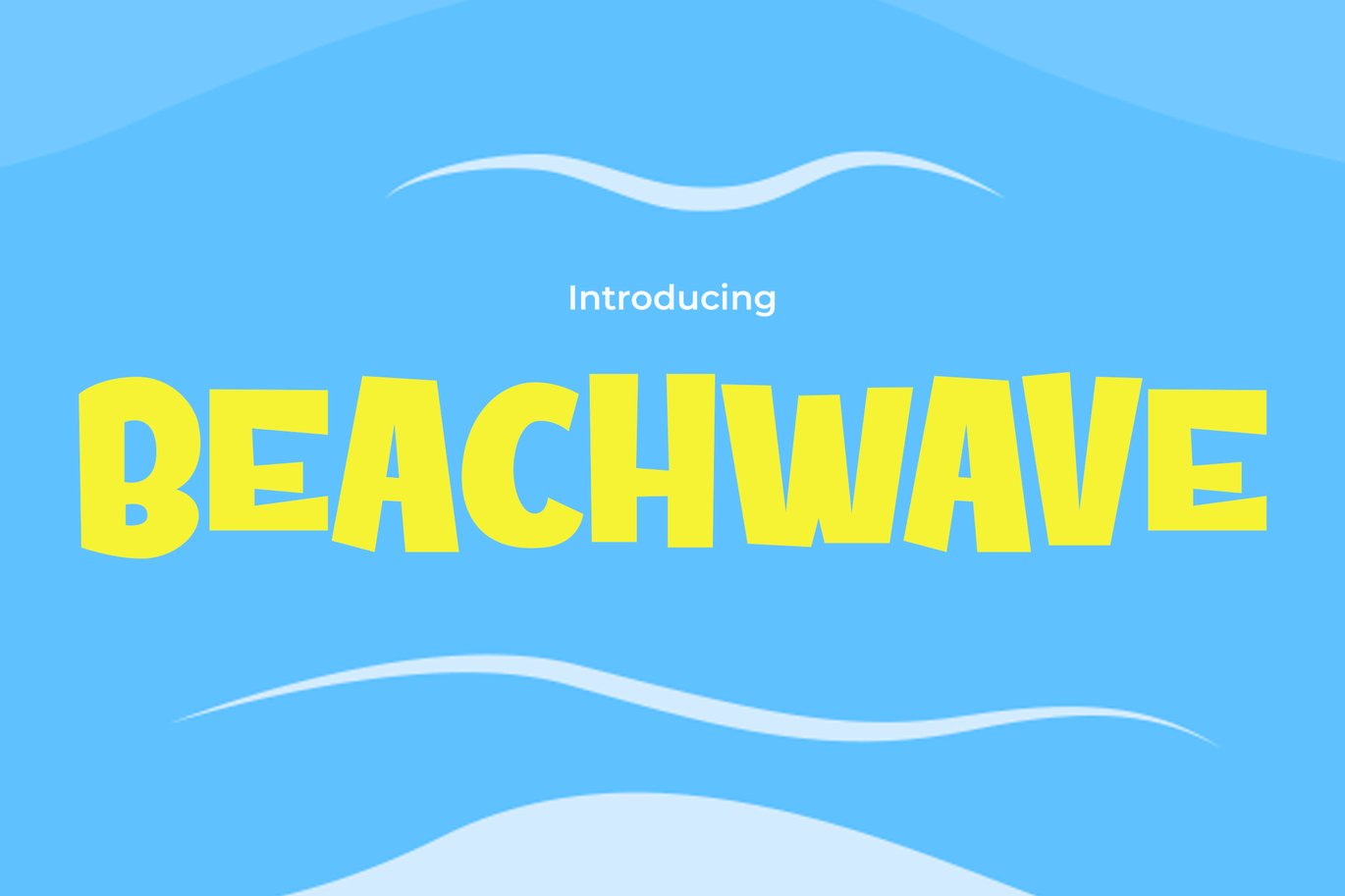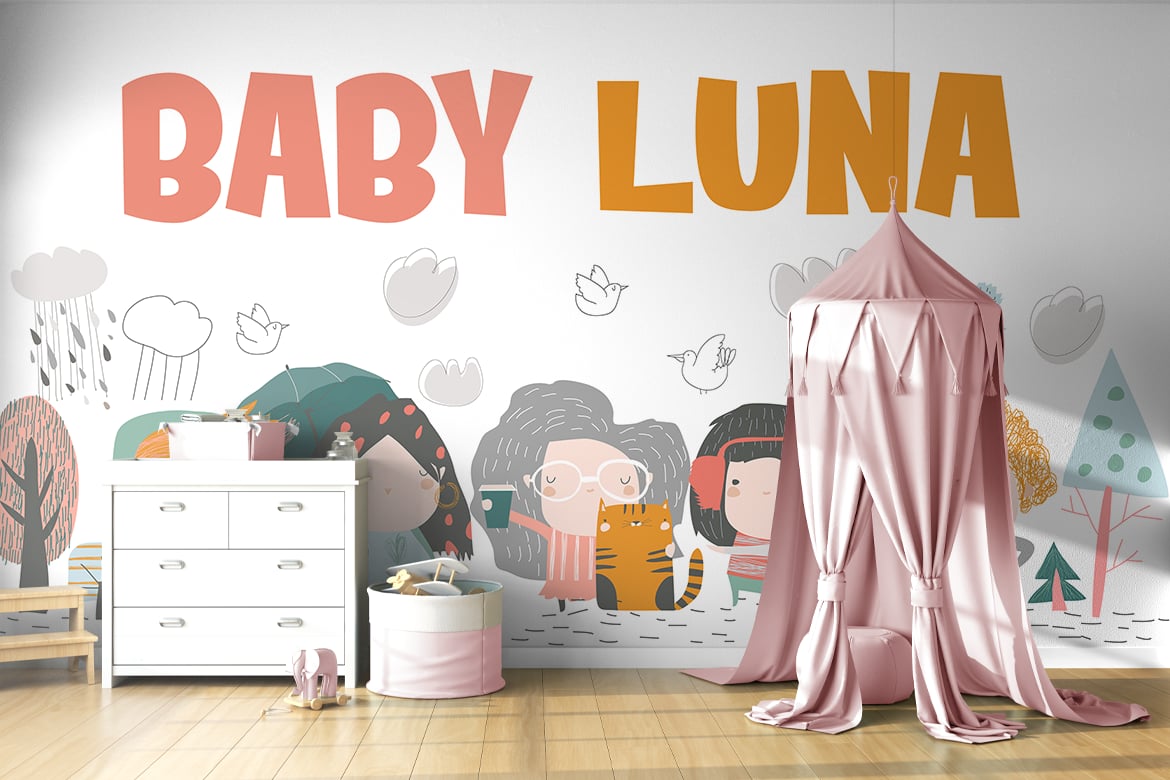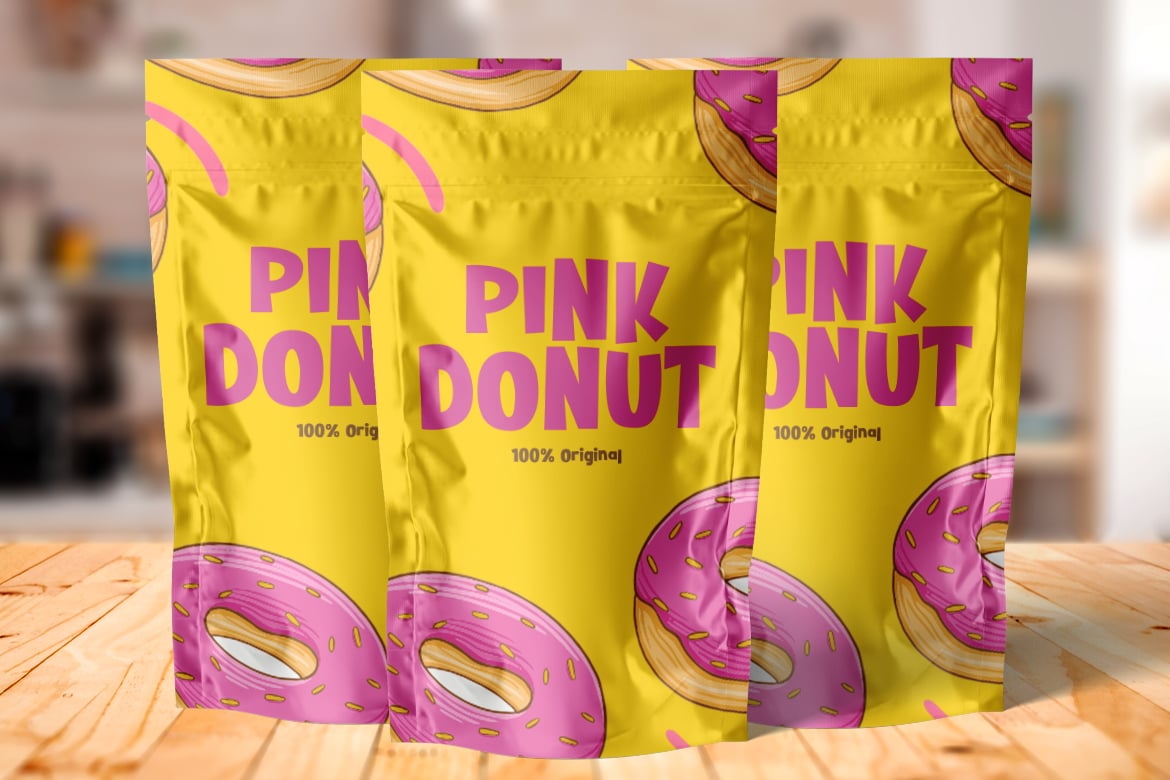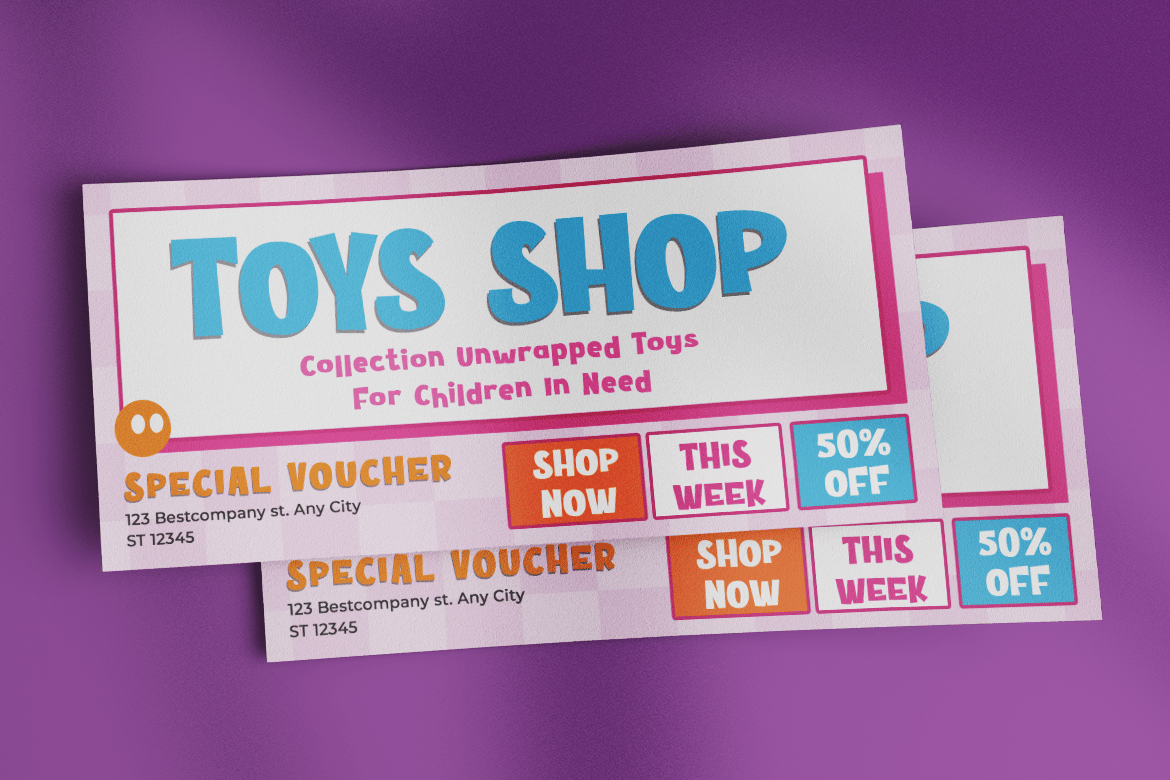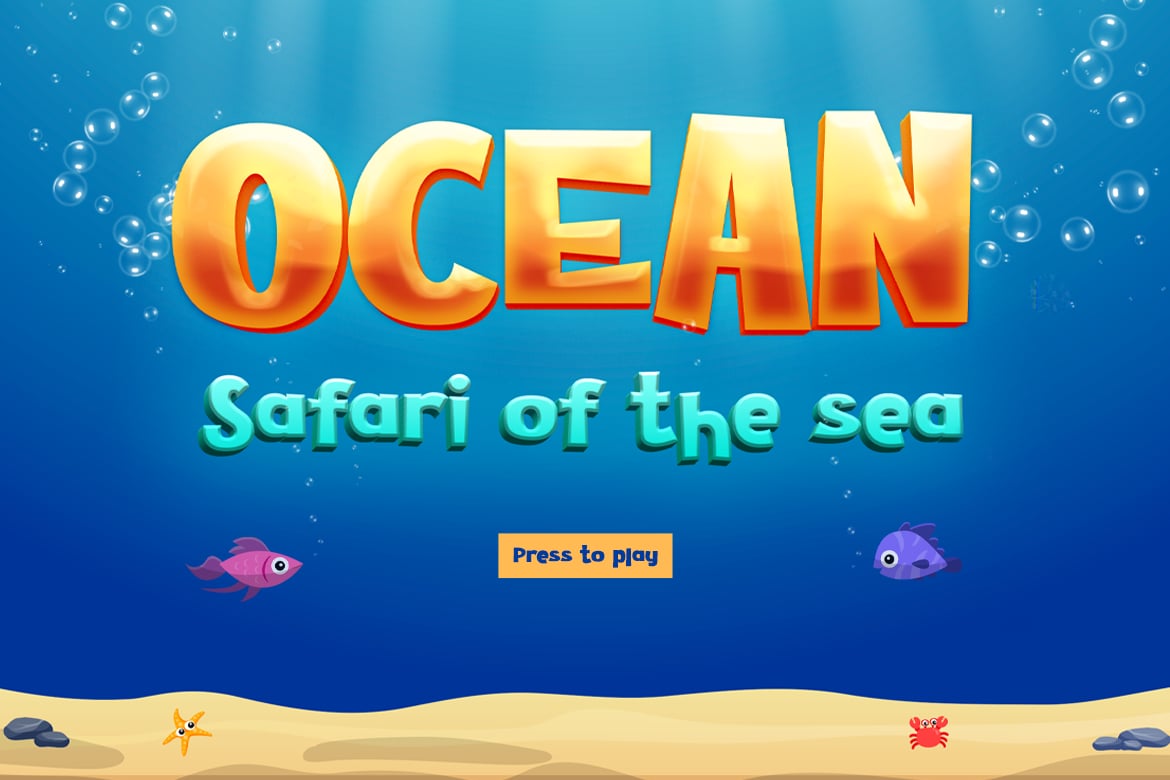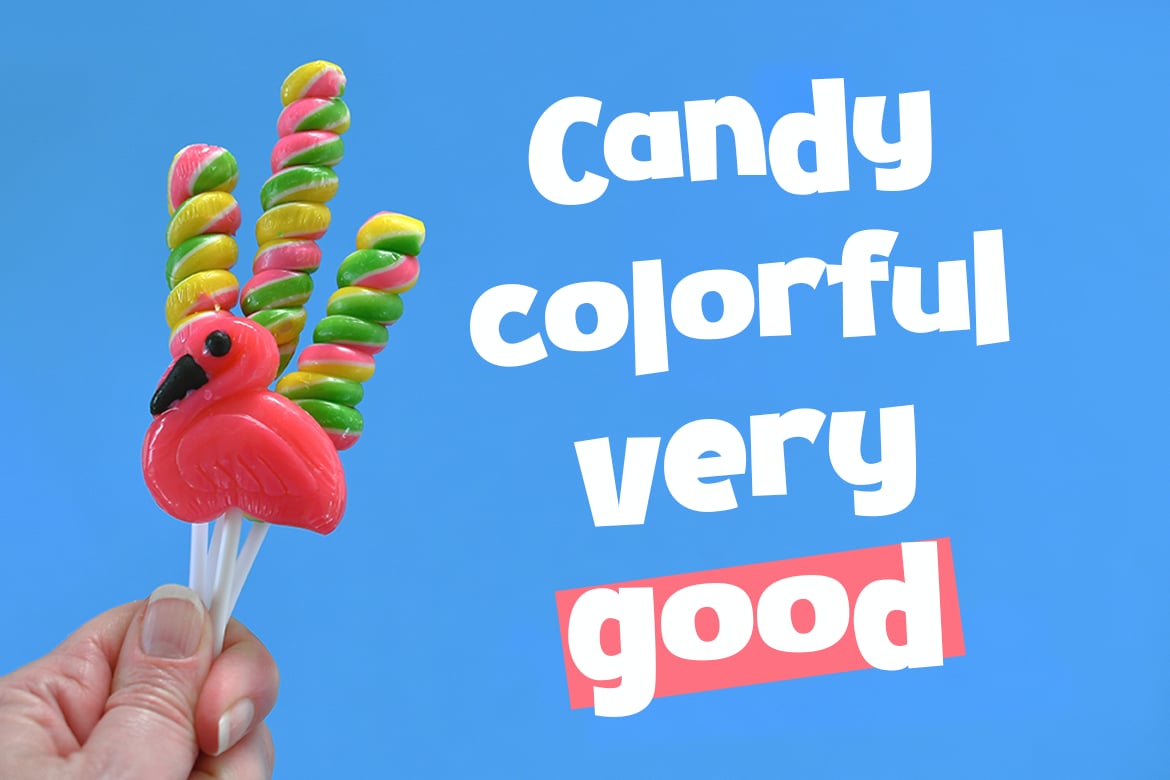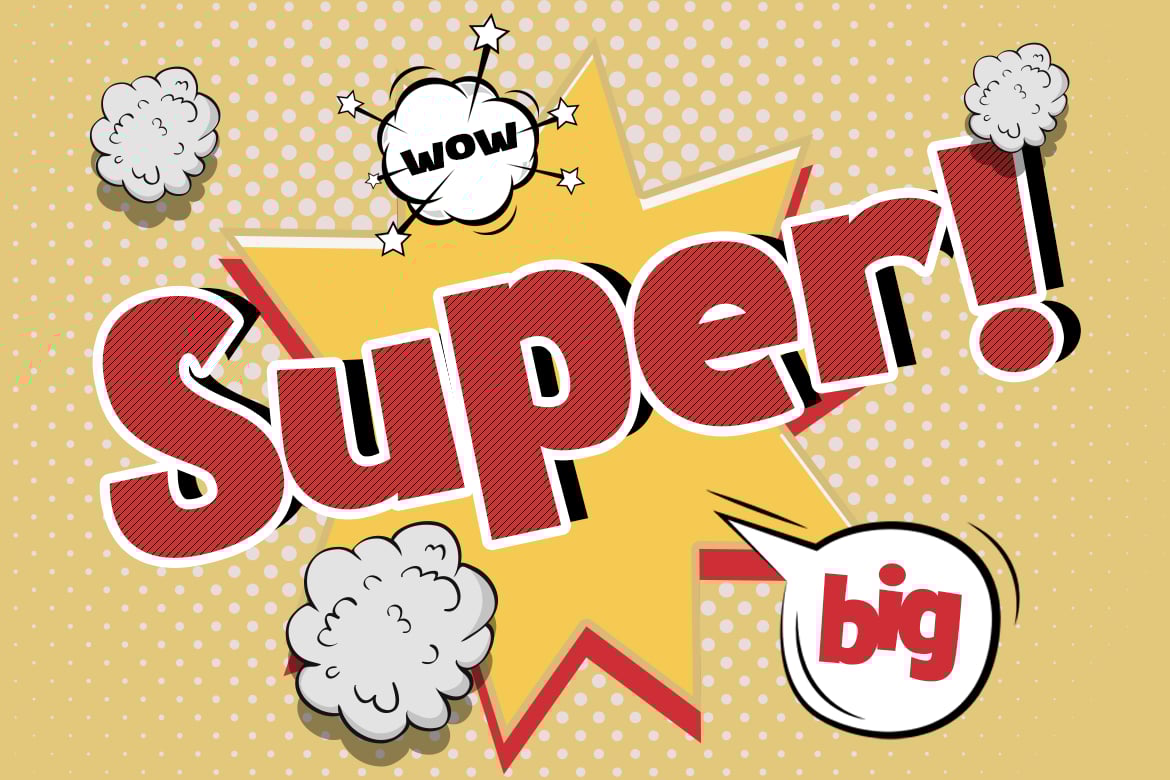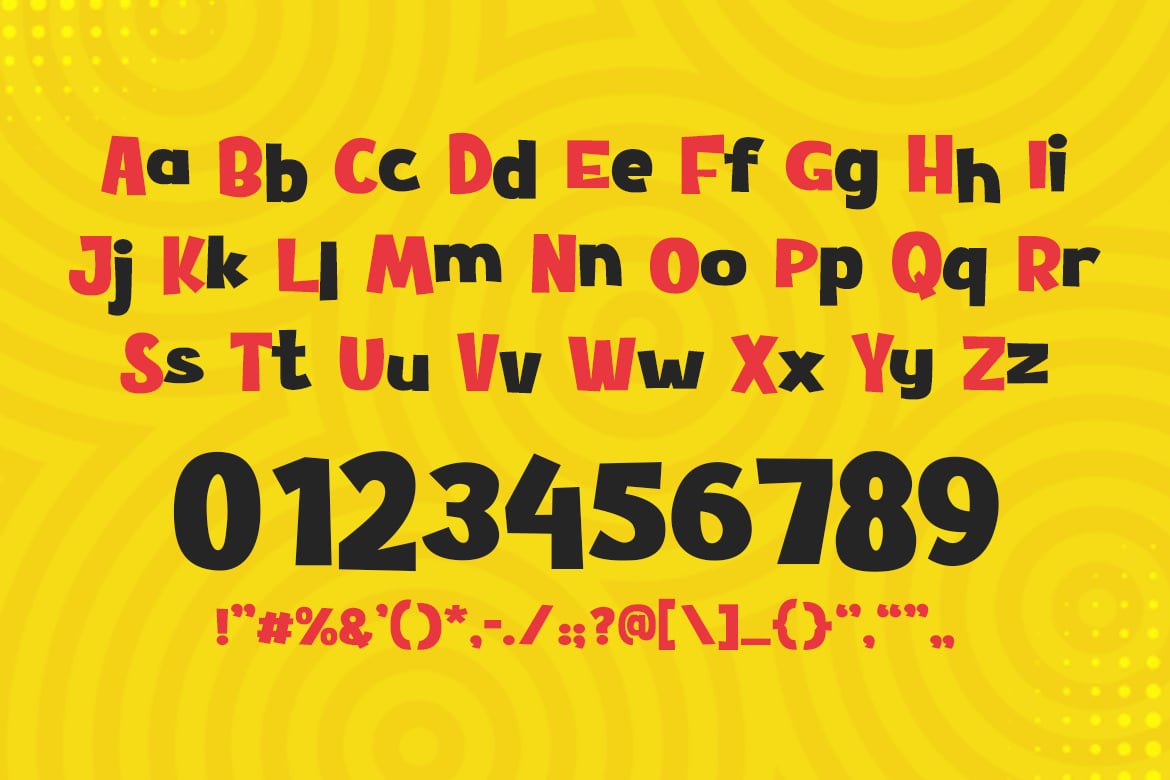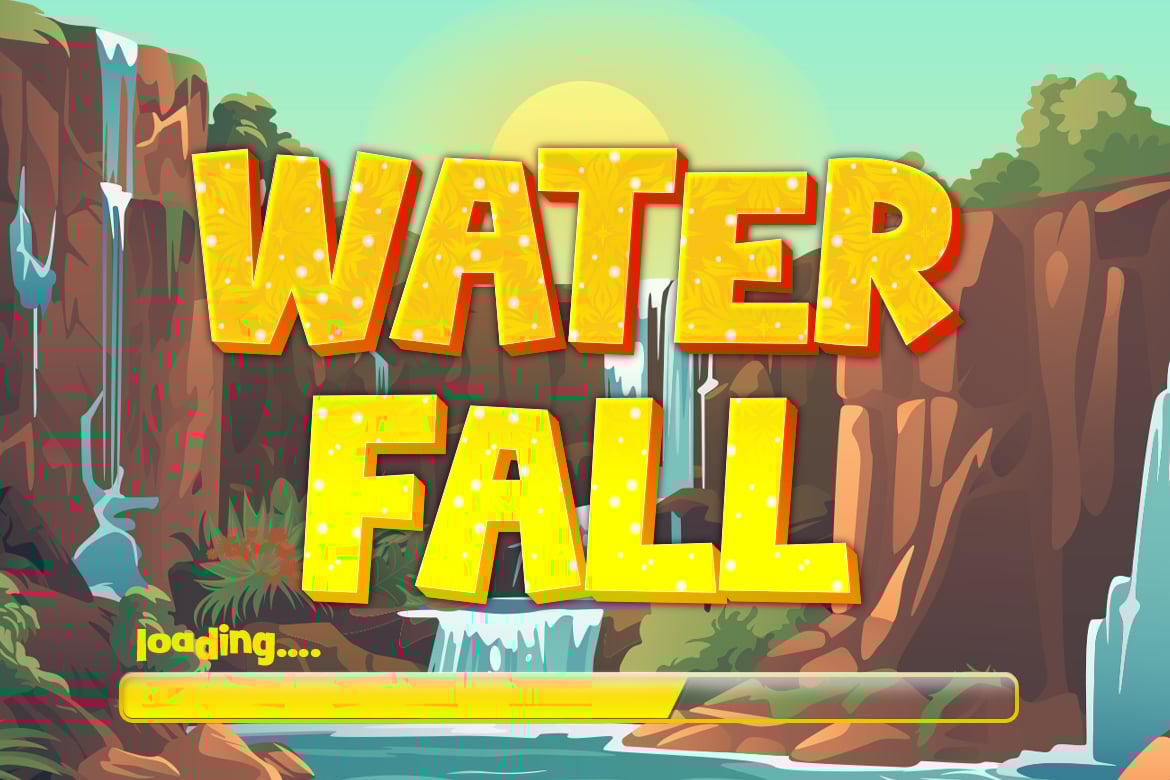
Game Font – Beachwave
Beachwave is a dynamic game font explicitly designed for the gaming community, blending playful vibes with the excitement of esports and video gaming. With its vibrant and fun design, Beachwave is perfect for projects for kids and young gamers. It enhances logos with its energetic style, injects life into quotes, and excites invitations. Whether used in posters, greetings, or branding, Beachwave adds a touch of playfulness that engages and delights. Its suitability extends to packaging and event materials, making every design visually appealing and inviting. For covers, headlines, and advertising campaigns targeting the gaming industry, Beachwave delivers messages with an impactful and youthful flair.